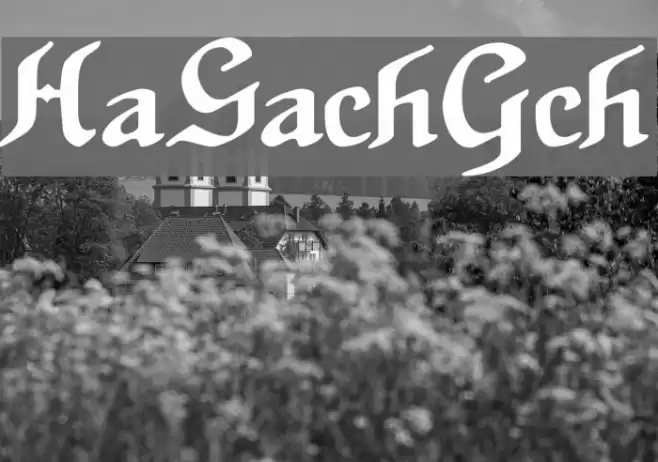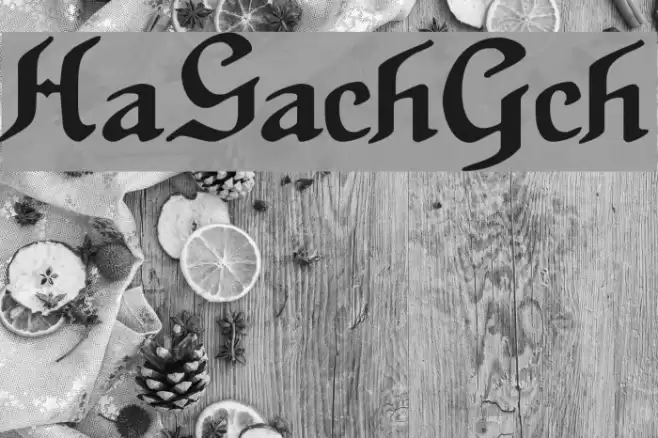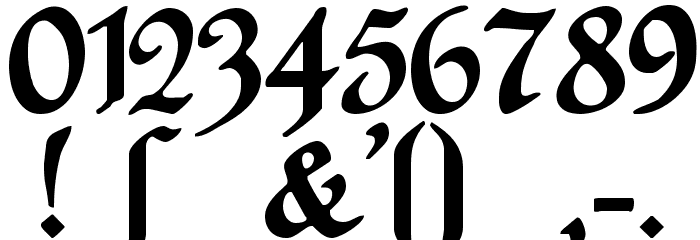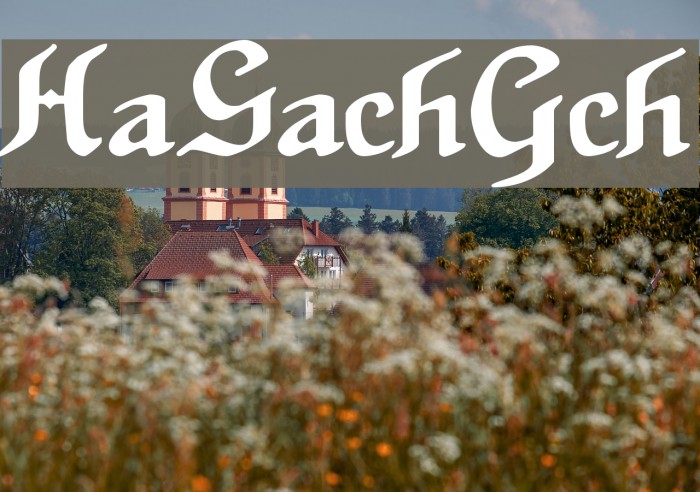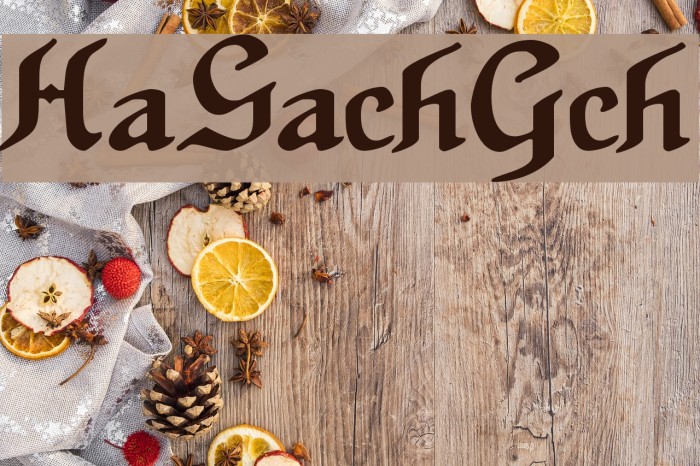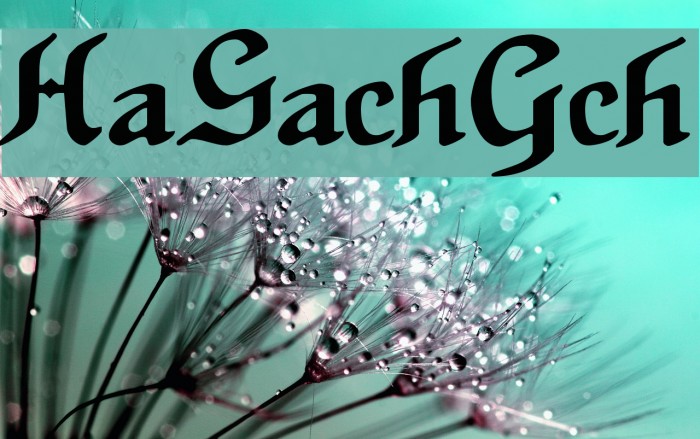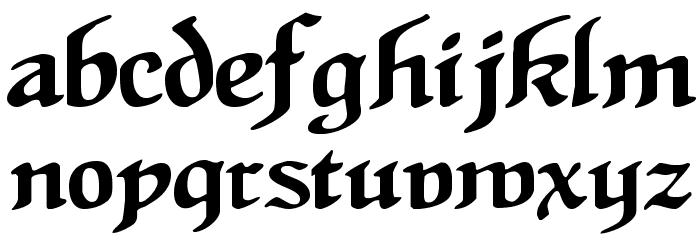
HansSachsGotisch Font
HansSachsGotisch Description
This font exhibits a traditional and ornate style, reminiscent of historical scripts with its intricate and decorative letterforms. The uppercase letters are bold and commanding, featuring sharp angles and flourishes that evoke a sense of grandeur and formality. The lowercase letters maintain the same decorative quality, with a slightly more subdued presence, allowing for readability while still retaining the font's distinctive character. The numerals are equally stylized, matching the overall aesthetic with their elegant curves and pointed edges. Special characters are crafted with the same attention to detail, ensuring a cohesive look across all glyphs. This font's design is ideal for projects that require a touch of historical or classical elegance.
An ornate, historical-style font with intricate, decorative letterforms from Uncategorized fonts.
- Proposed Projects: Ideal for invitations, certificates, historical documents, or branding that requires a classical touch.
- Overall Style: Vintage